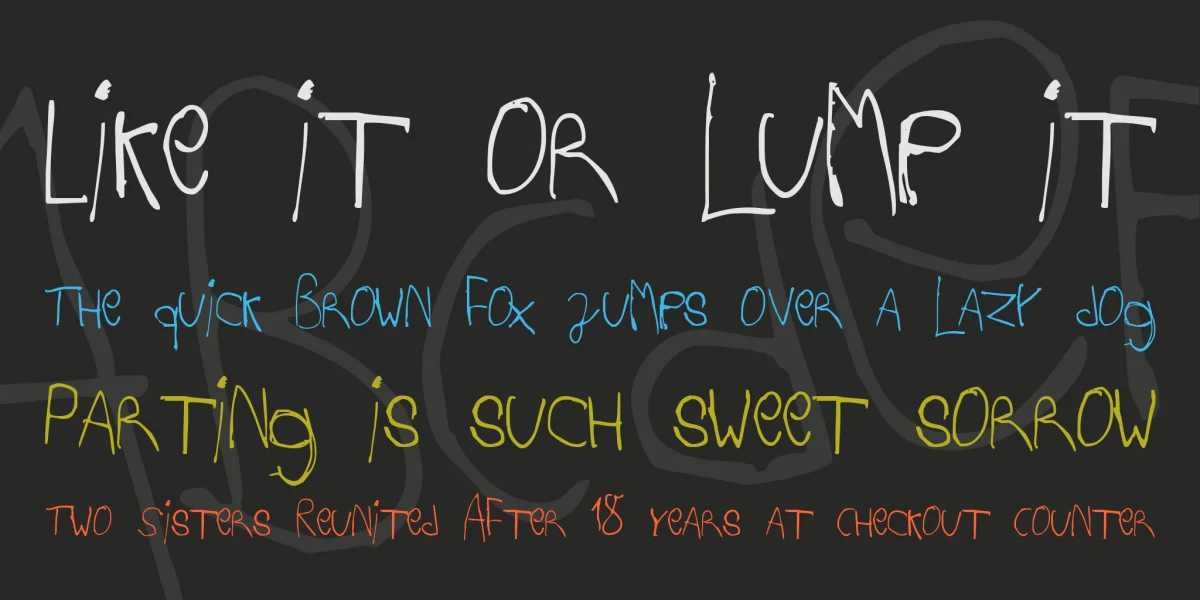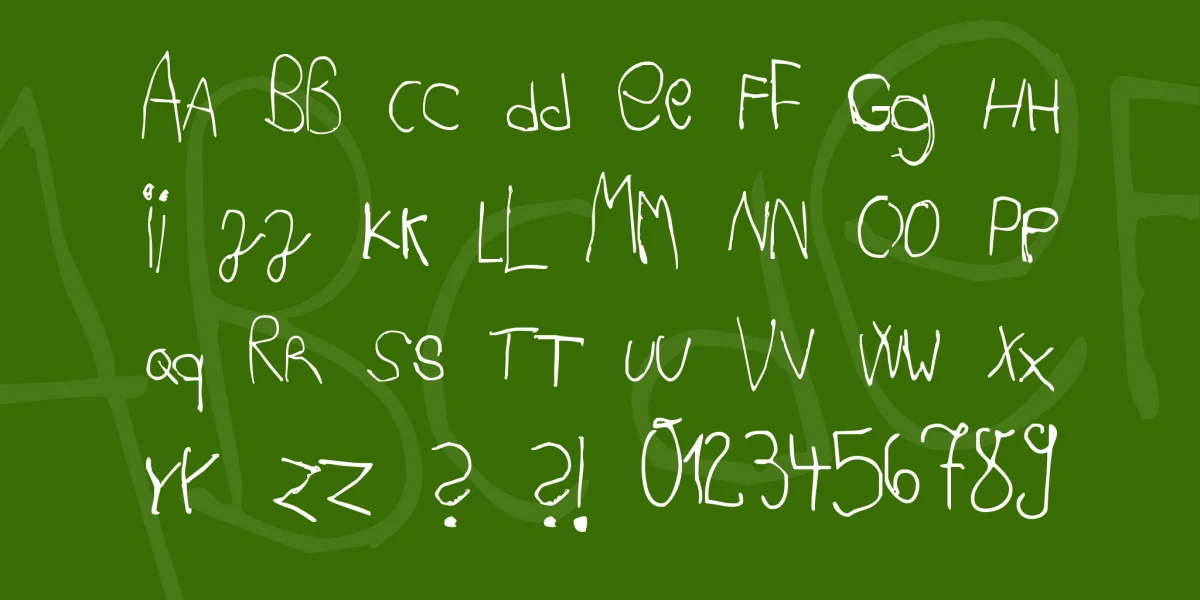
This is my original handwriting at age 5 when I just had learned to read and write. Cute, don’t you think? It’s looks especially genuine if you vary upper and lower case writing. Have fun!